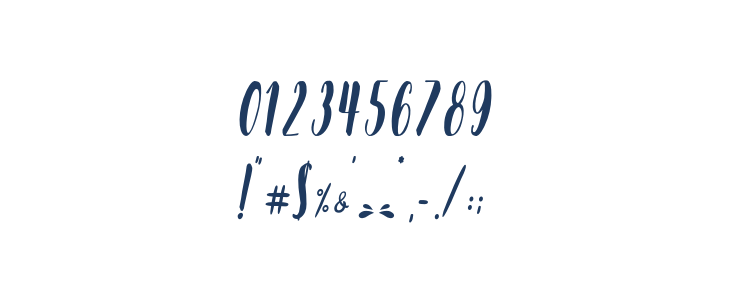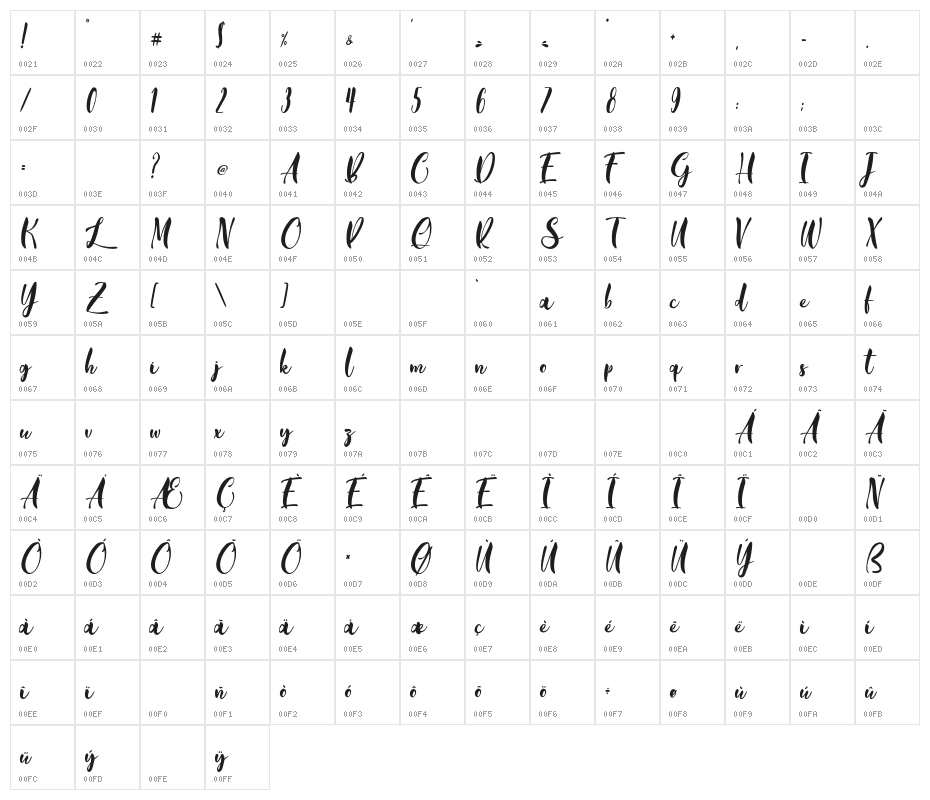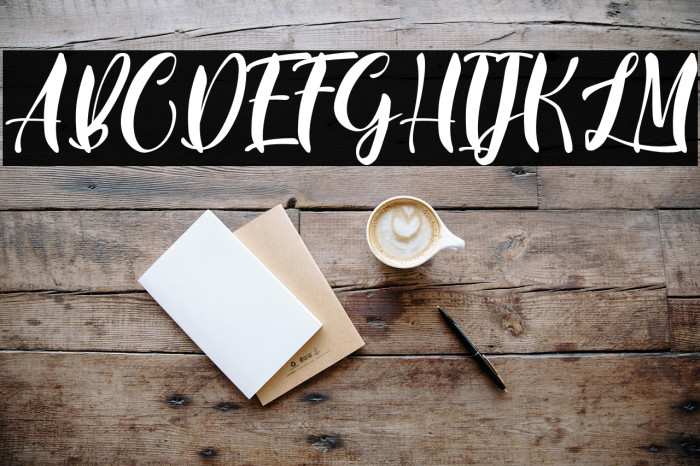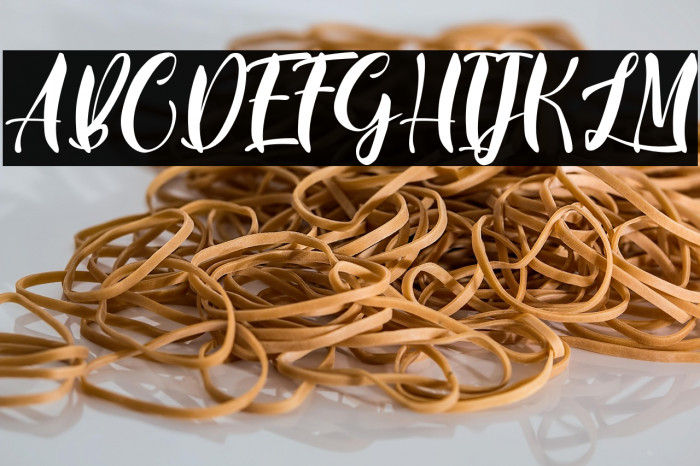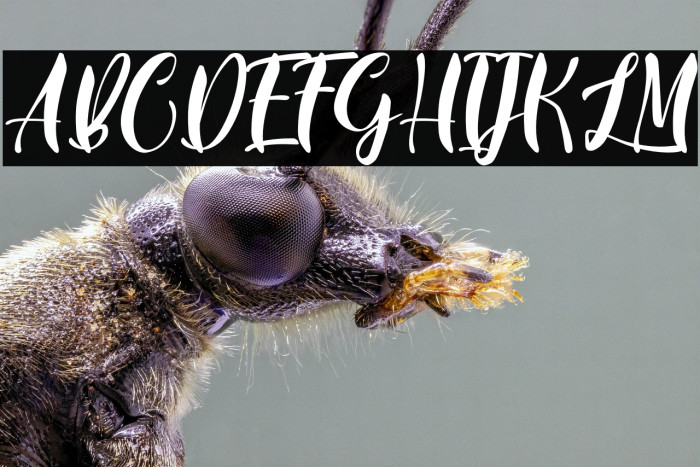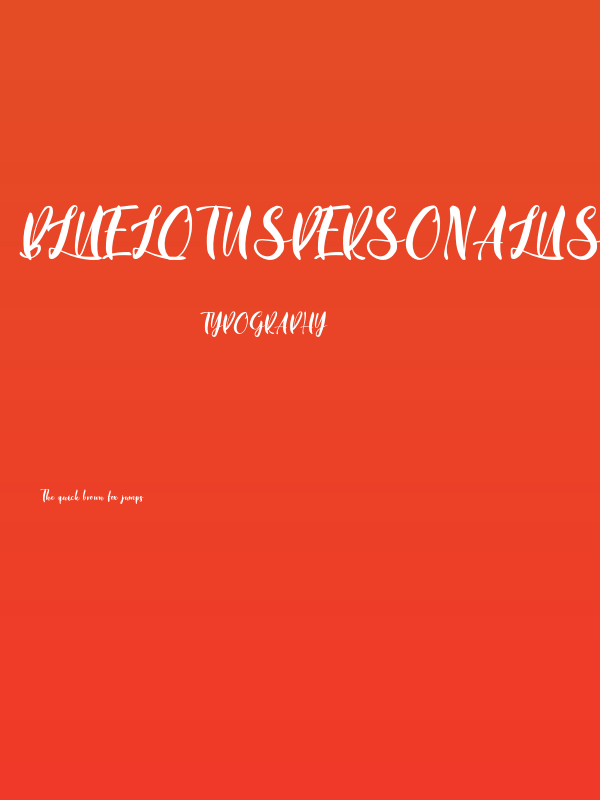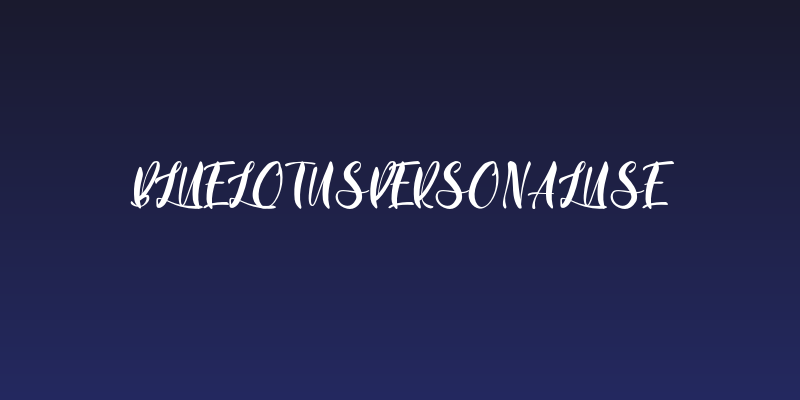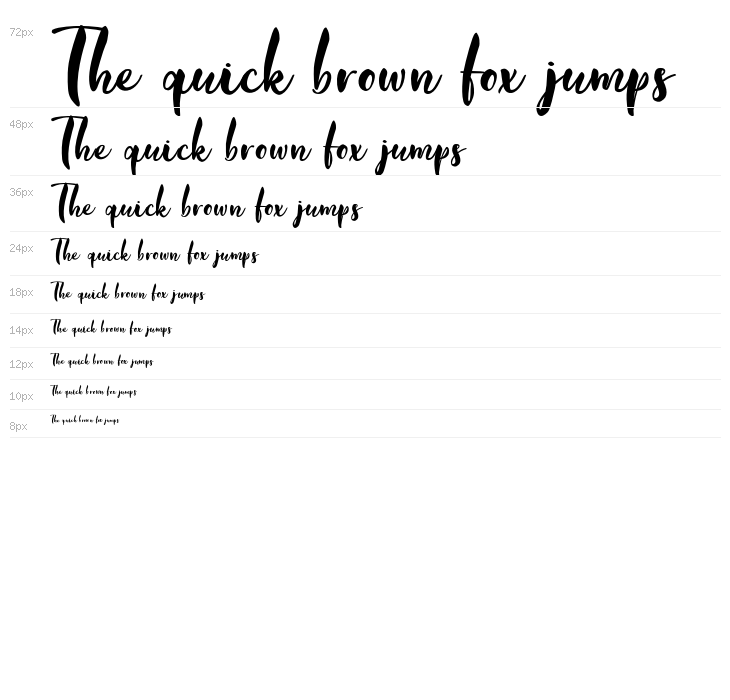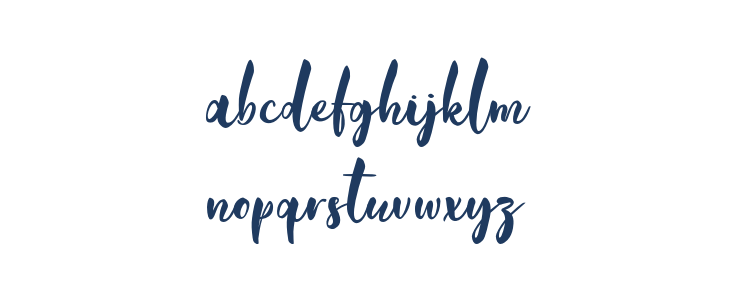
BlueLotusPersonalUse Font
BlueLotusPersonalUse Description
This font features an elegant and flowing script style, characterized by its smooth, cursive strokes and artistic flair. The uppercase letters are bold and dynamic, with a sense of movement and fluidity, while the lowercase letters maintain a consistent, graceful appearance. The numerals are stylish and complement the overall aesthetic, making them suitable for decorative purposes. The special characters are creatively designed, adding a touch of sophistication and charm. This font exudes a sense of modern elegance, making it ideal for projects that require a personal and artistic touch.
| Overall Style | Modern, Decorative |
| Use Case | Logos, Headlines, Invitations |
| Proposed Projects | Ideal for wedding invitations, greeting cards, branding, and artistic projects requiring a personal touch. |